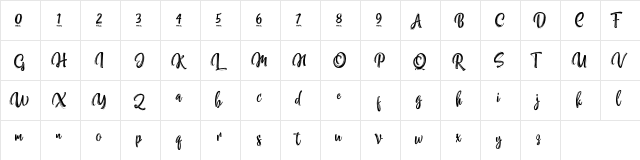
Nettizen Script_TRIAL Regular
Design Context for Nettizen Script_TRIAL Typeface
Nettizen Script_TRIAL brings a calligraphic fluidity to the page — its connecting strokes and expressive curves give it an unmistakably human quality.
Font Pairing: Combine Nettizen Script_TRIAL with a simple geometric sans for maximum contrast — the tension between flowing curves and clean structure is a classic typographic pairing.
Pro Tip: Use Nettizen Script_TRIAL for short runs of text — names, titles, or taglines. Extended body copy in script faces tires the eye quickly.